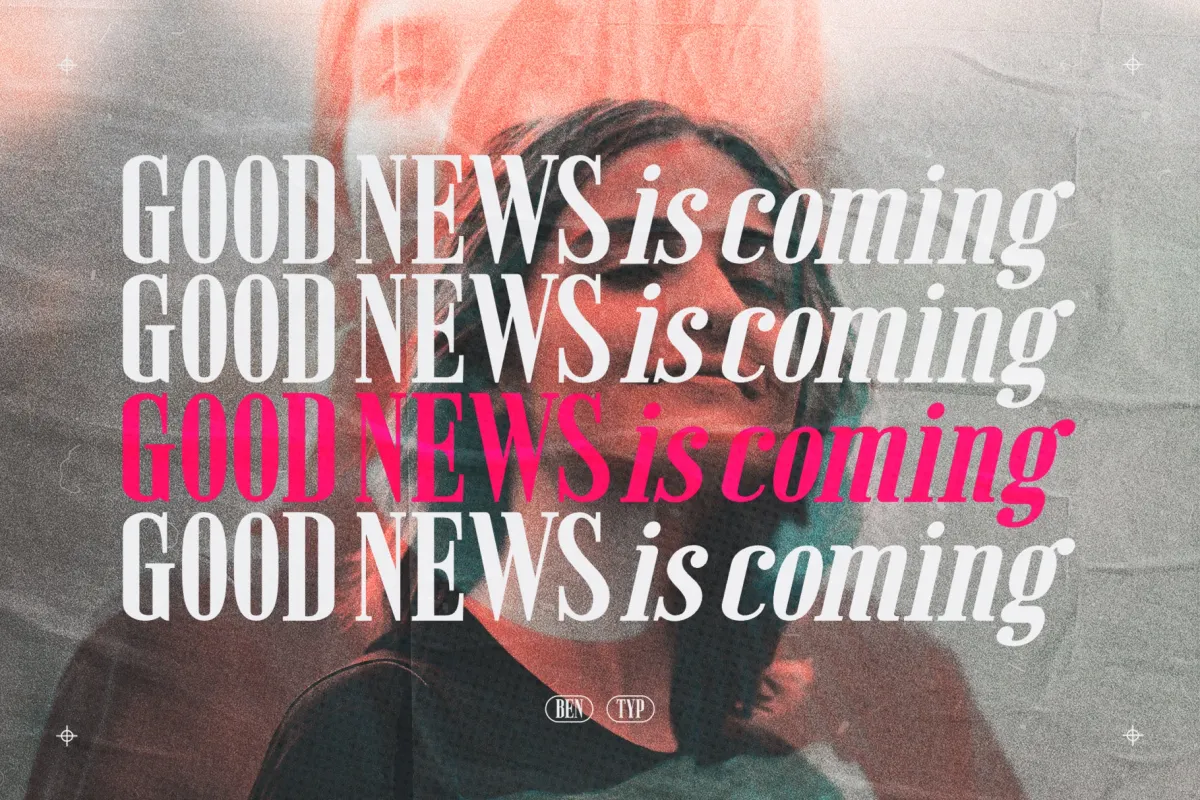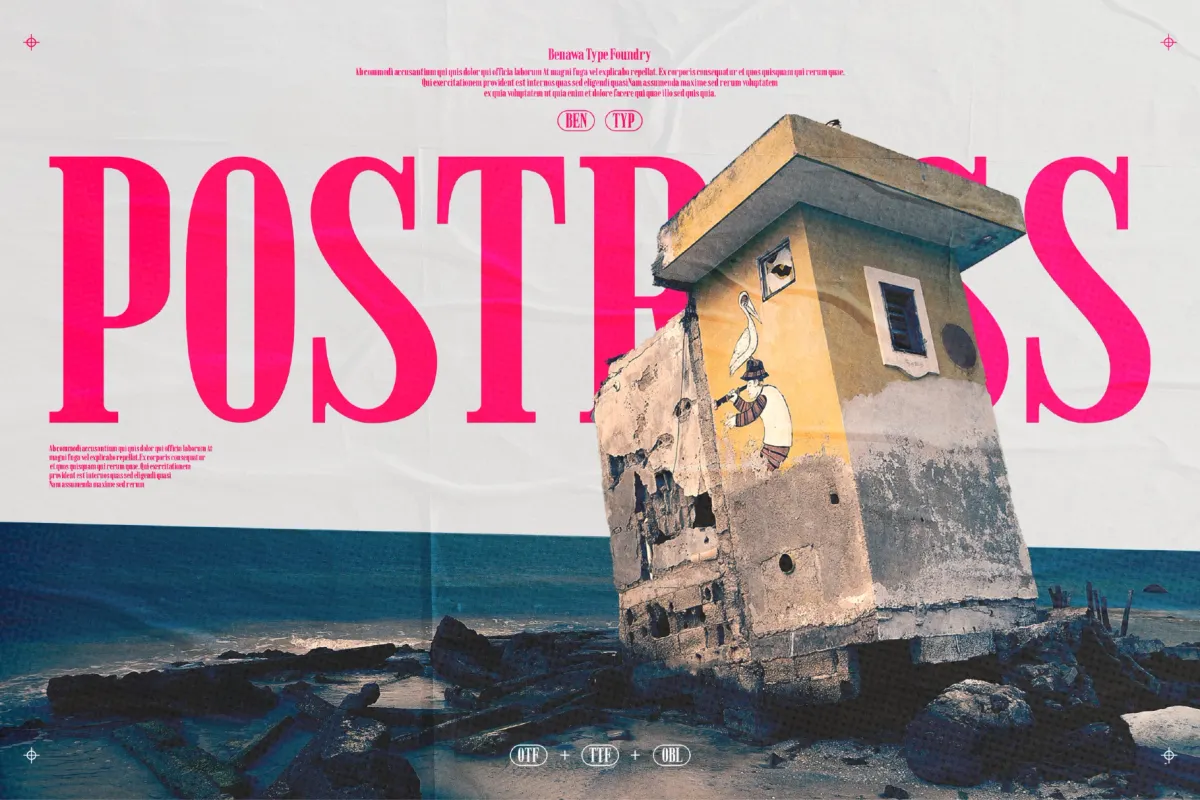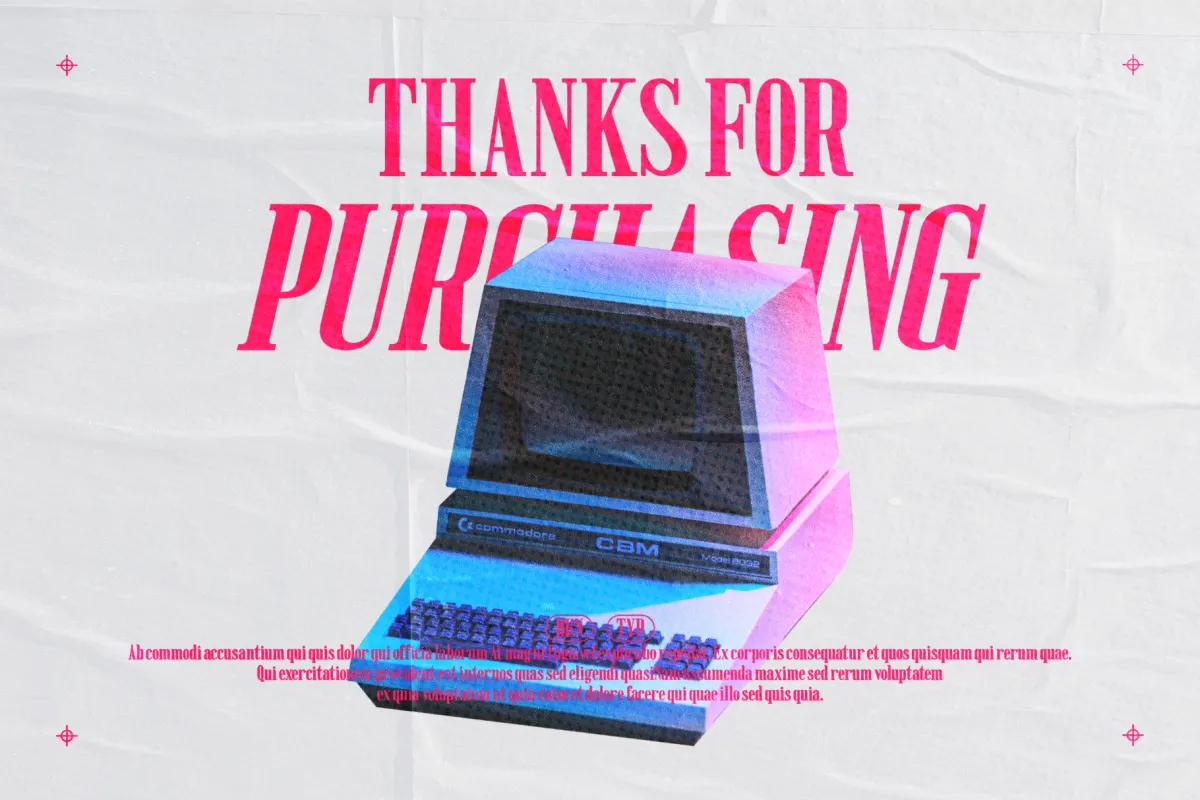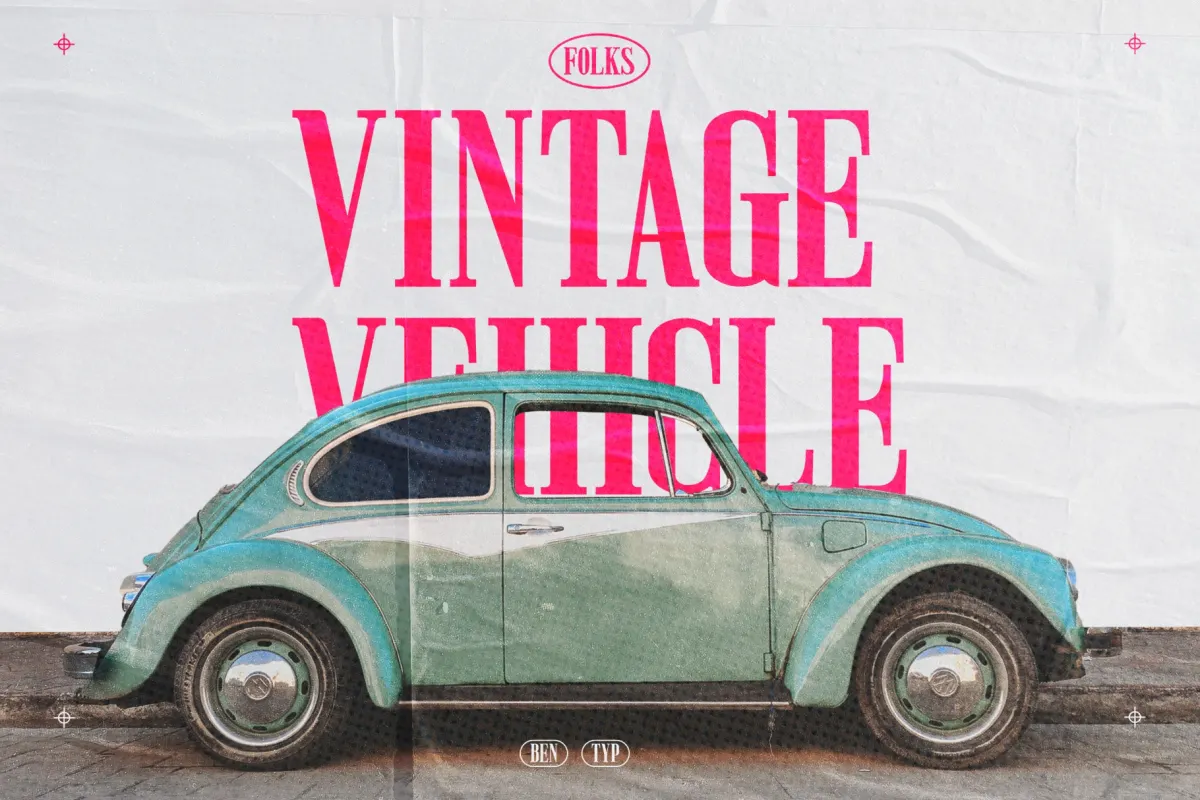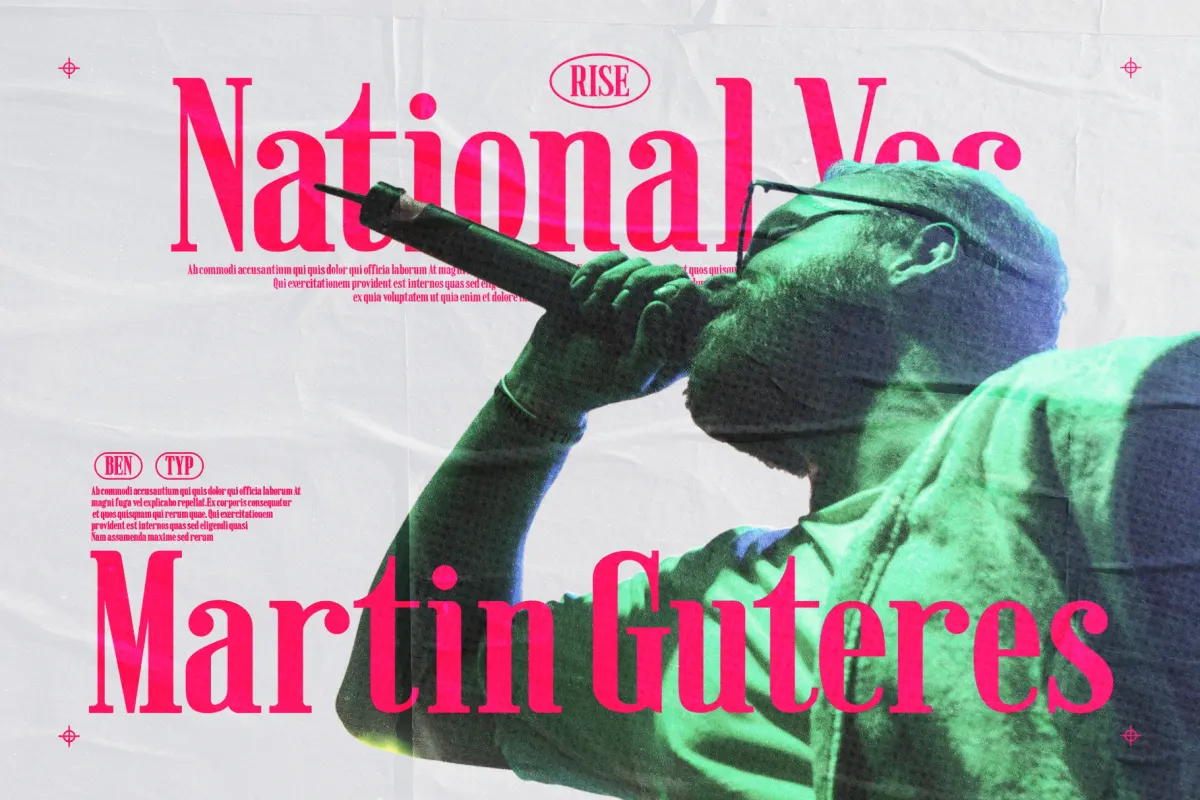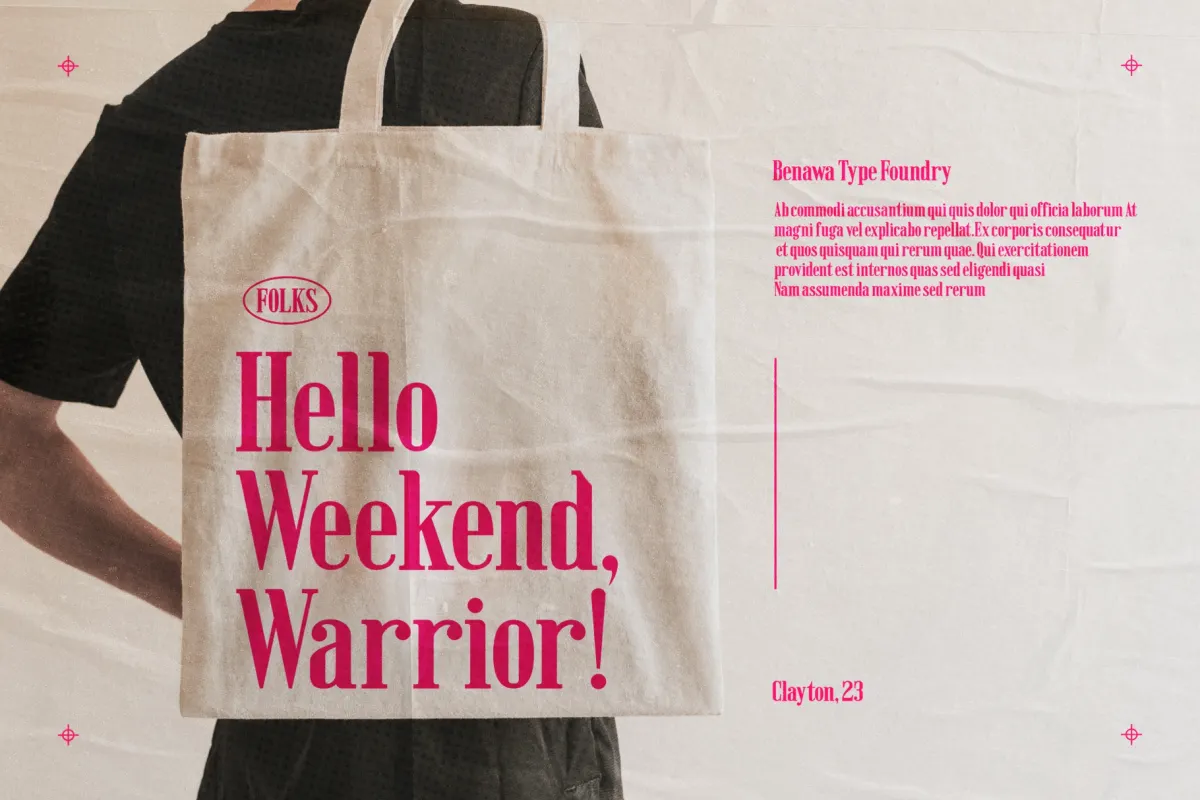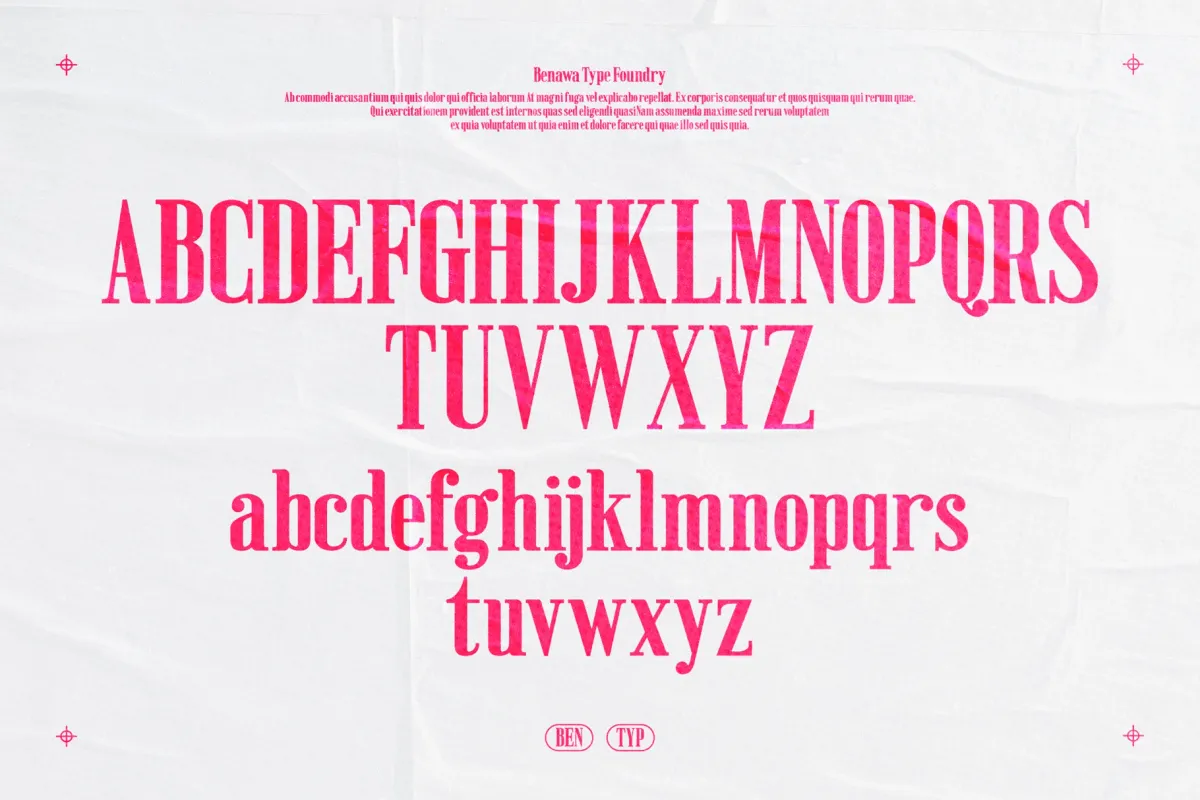
Postress - Condensed Serif Font
POSTRESS packs a slab-leaning serif into a tight, condensed frame, with squared terminals and an even, no-nonsense stroke weight. An oblique companion leans the same letterforms at a slight angle for contrast headlines and secondary lines.
Use it for headlines, billboards, magazine titles, posters, branding, and logos where a compact, sturdy serif needs to hold its ground.
- 2 styles: Regular and Oblique;
- Uppercase & lowercase;
- Numerals, punctuation & symbols.